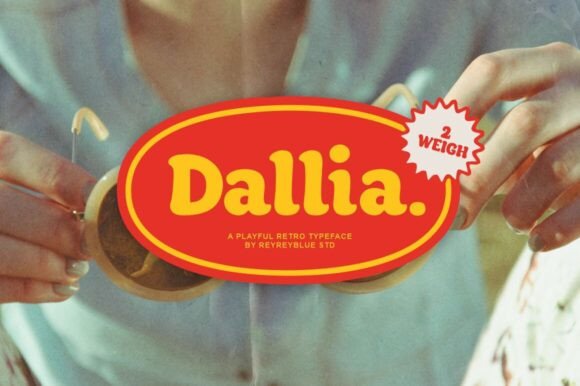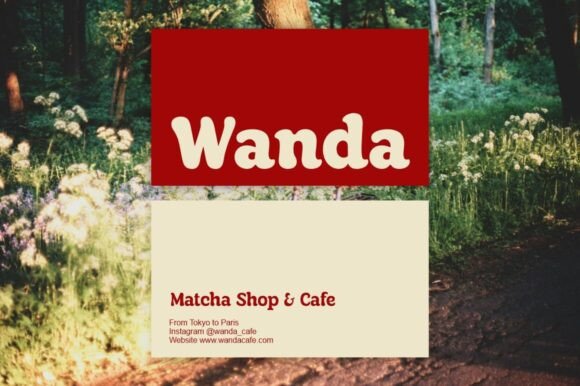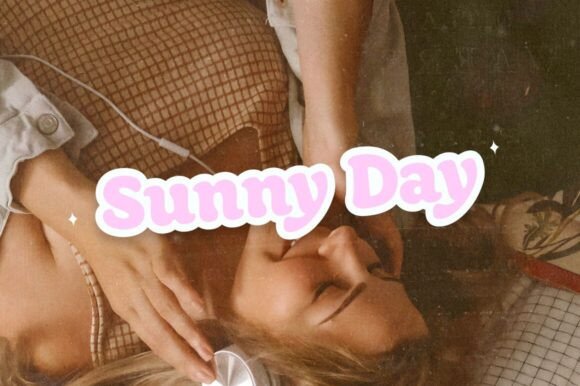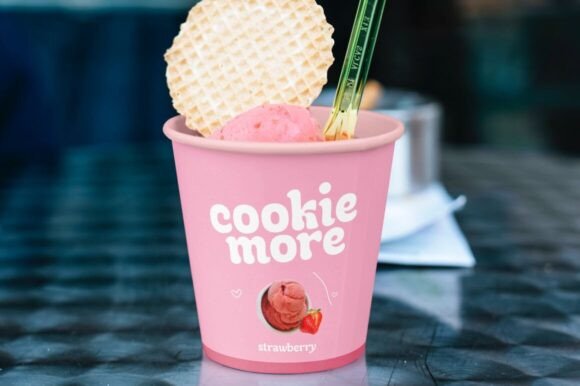
Dallia Font: Retro Aesthetic Font for Logos & Social Media Design
About the Dallia Font
Unleash your creativity with Dallia Font, a versatile font perfect for a wide range of applications. Looking for a vintage-inspired font that adds warmth and character to your designs? Dallia is the ideal choice! With its bold, classic typography, this font is perfect for logos, packaging, posters, social media graphics, and more. Whether you’re designing for a bakery, café, or creative business, Dallia brings a timeless and professional touch.
Why Choose Dallia?
1. Retro yet modern – a classic look with contemporary appeal
2. Easy to read and versatile for various designs
3. Perfect for food, café branding, creative businesses, and many more
Dallia Font Usage Examples